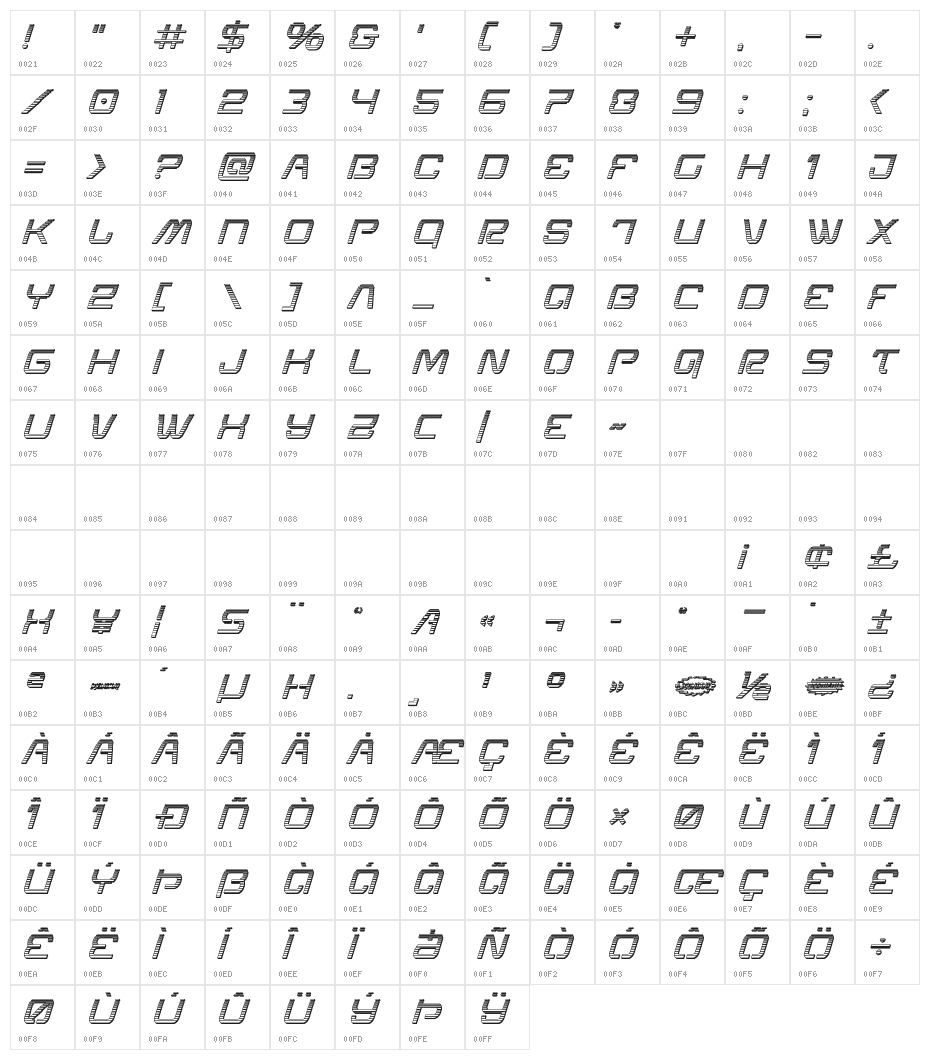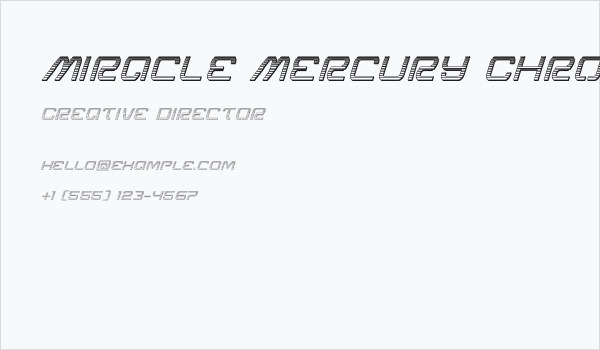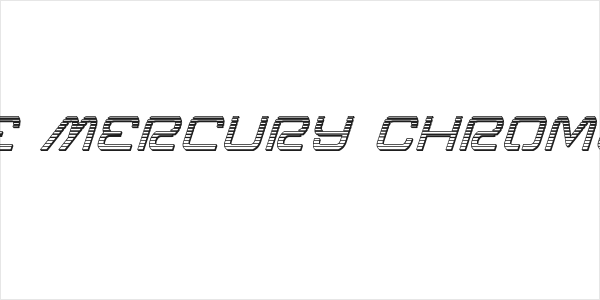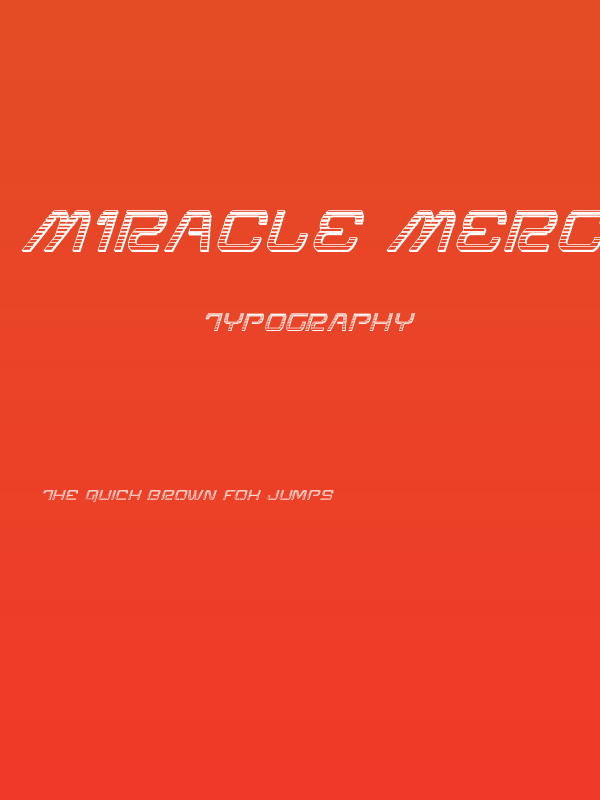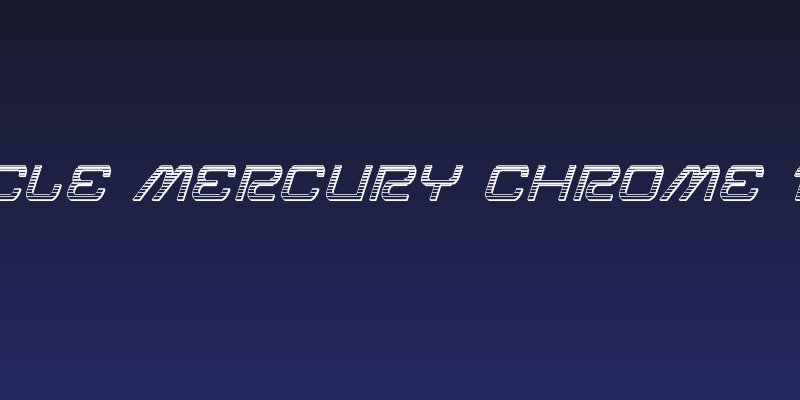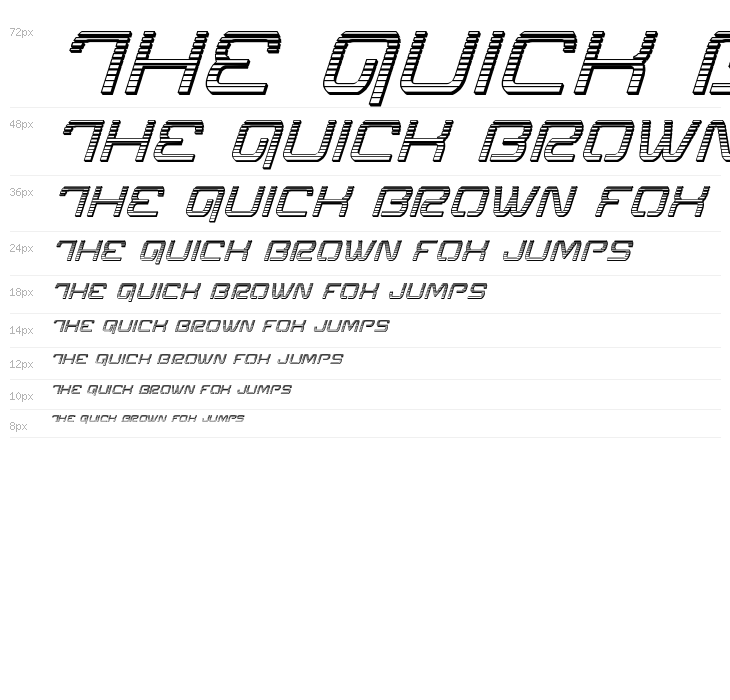
Miracle Mercury Chrome Italic Font
Miracle Mercury Chrome Italic Description
This font features a futuristic and dynamic design, characterized by its italicized and chrome-like appearance. The letters are constructed with a series of parallel lines, giving them a three-dimensional effect. The overall style is sleek and modern, with a sense of movement and energy. The uppercase and lowercase letters maintain a consistent style, with the numbers and special characters following suit. This font is ideal for projects that require a bold and eye-catching aesthetic, such as technology branding, sci-fi themed designs, or modern advertising.
| Proposed Projects | Ideal for technology branding, sci-fi themed designs, modern advertising, and dynamic logos. |